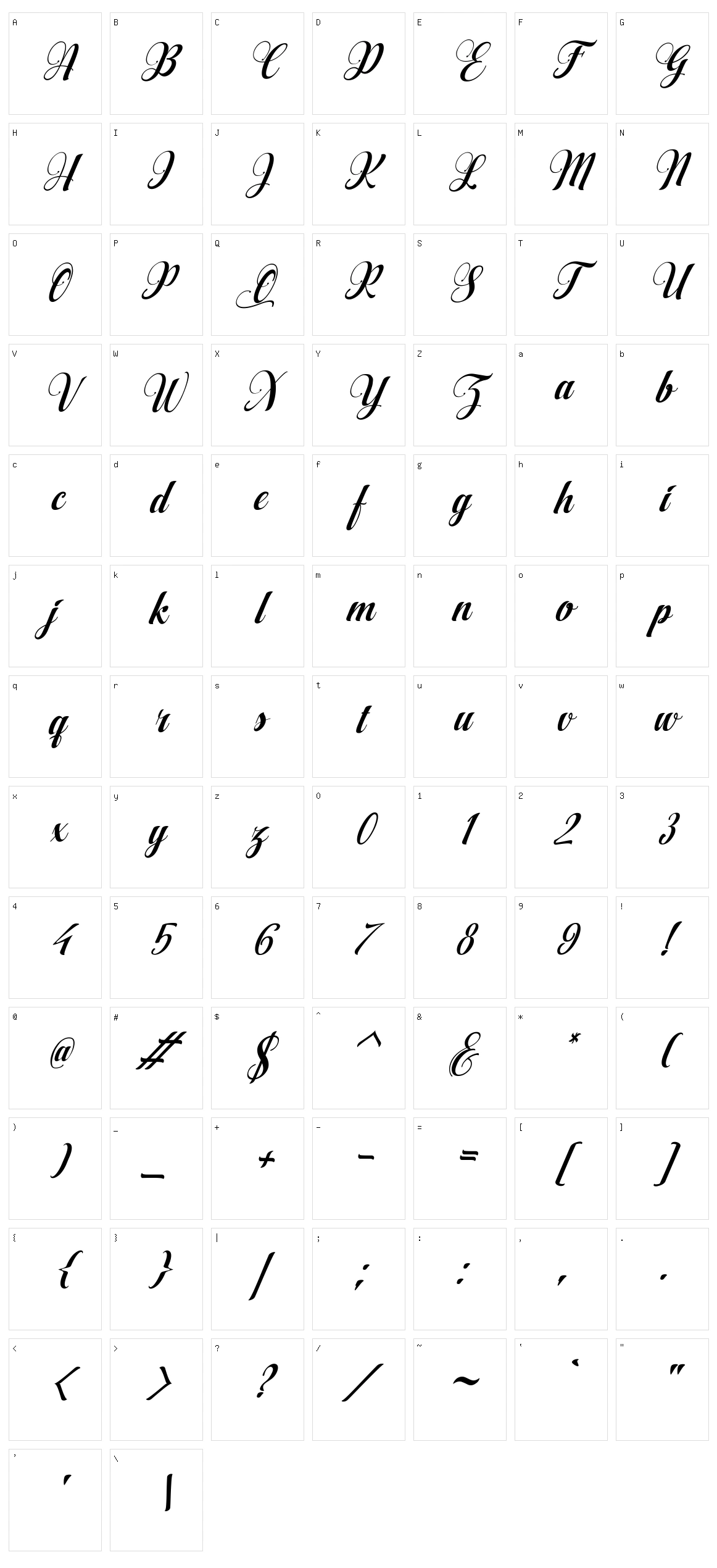
The free font Aqualita is carefully designed by Roiyani Teungku, showcasing a thoughtful balance of creativity and usability and falls under the Script font style. When you download the ZIP file, it contains only 31.06 KB of font files, making it lightweight and quick to download. Please review the license details below to understand permitted usage and distribution rights. If license information is not available, we recommend using this font for personal projects only or contacting the author directly for commercial usage permissions.